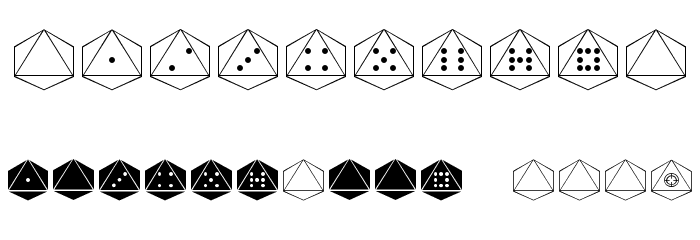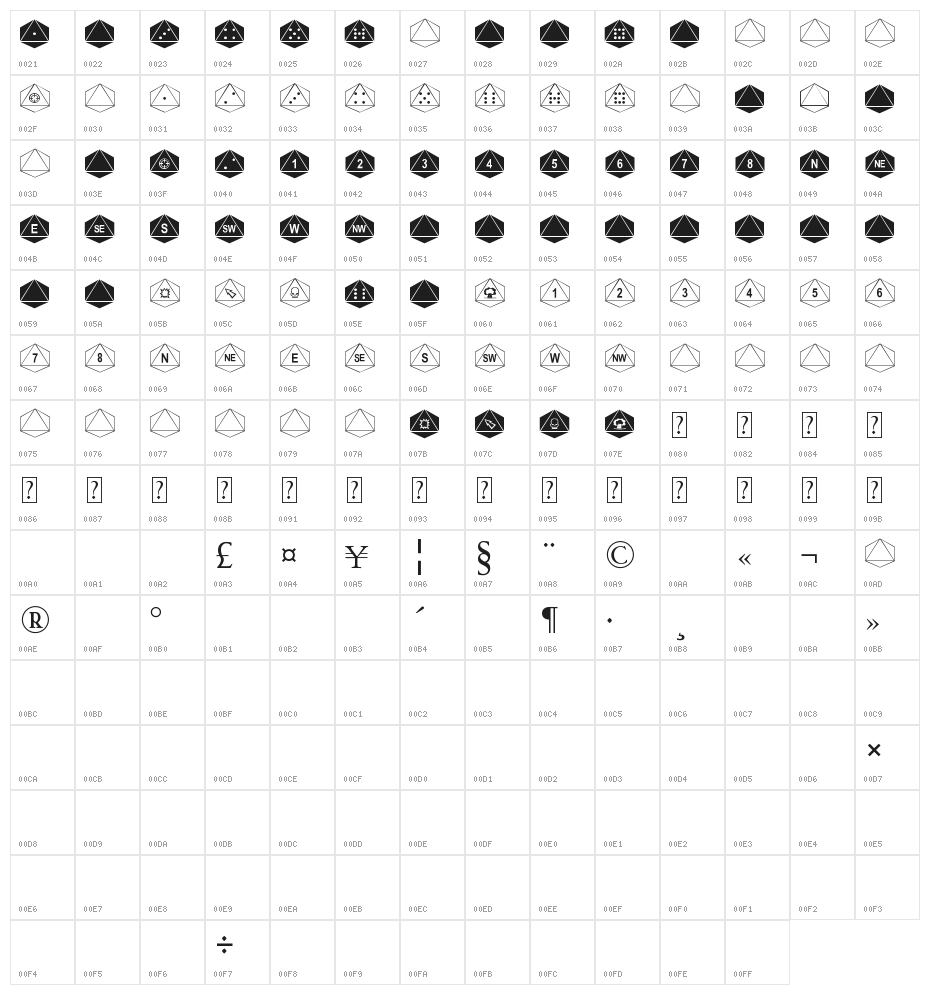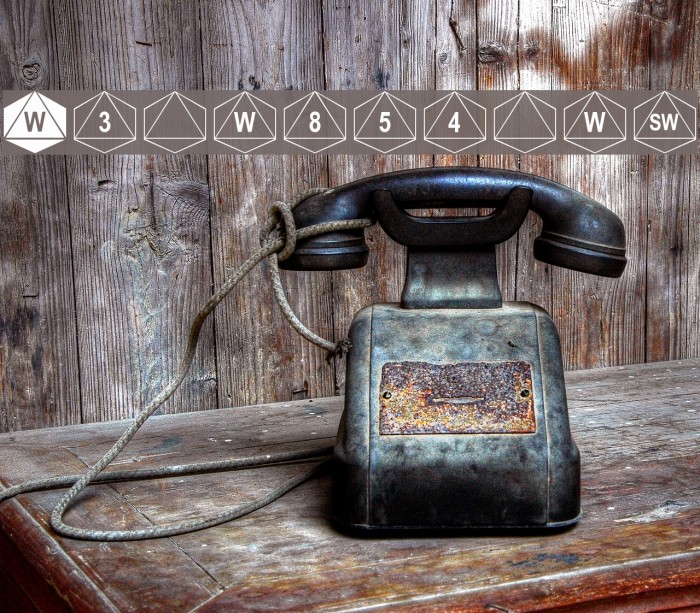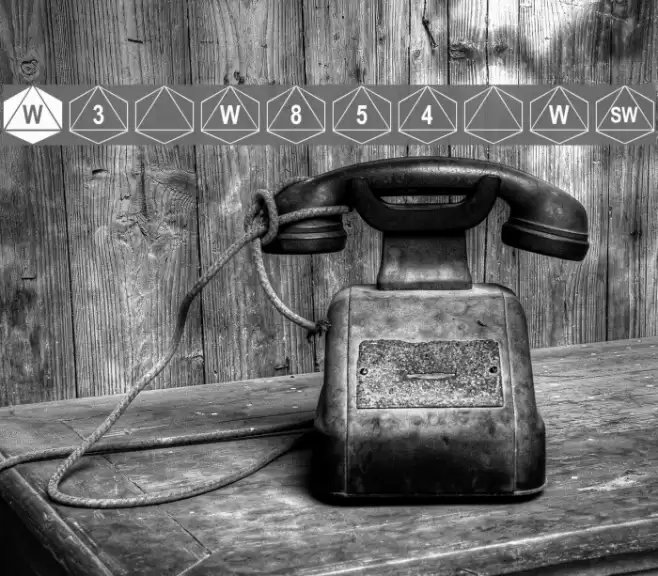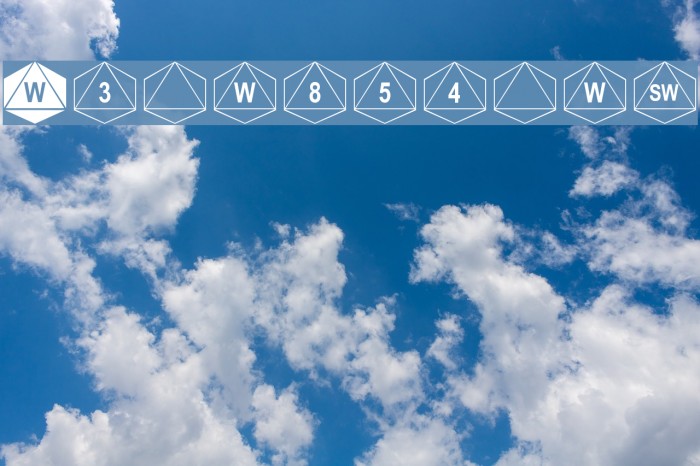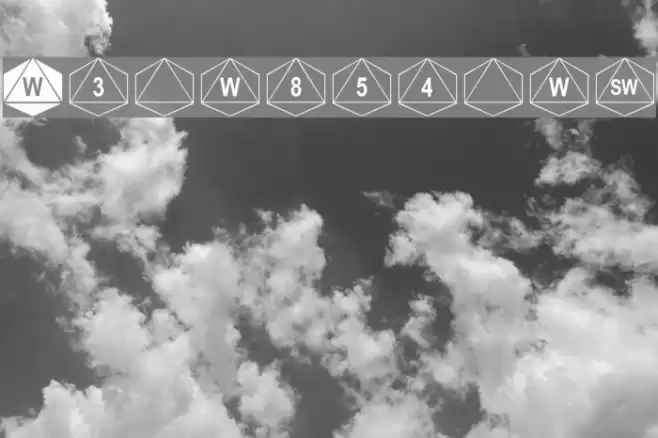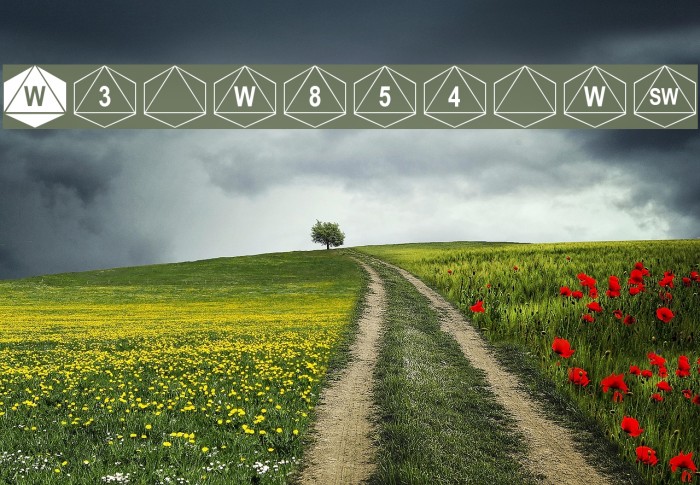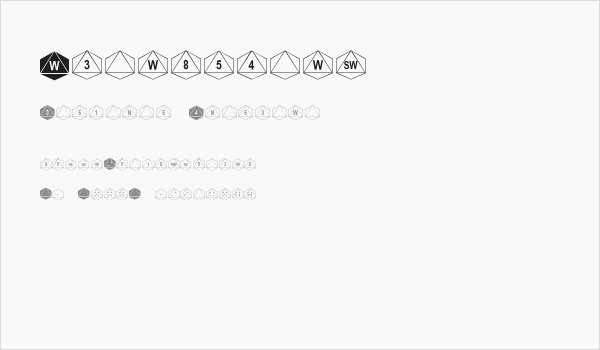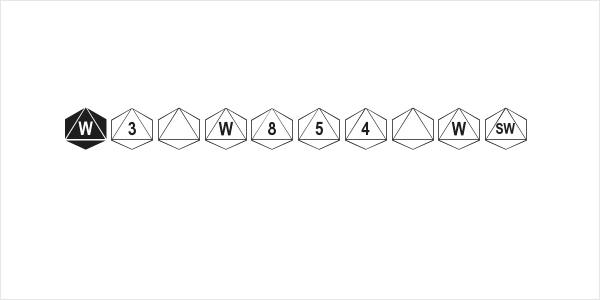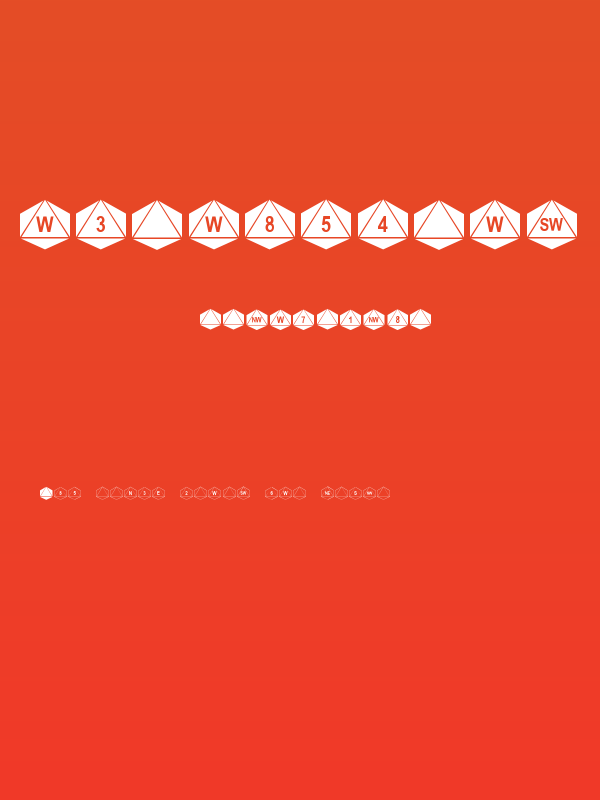
Octohedron Font
Octohedron Description
A geometric, icon-based set with octagonal shapes containing numbers, letters, compass directions, and dot patterns. The characters are centered within solid or outlined polygonal backgrounds, creating a modular and technical appearance.
| Overall Style | Modern, Geometric, Technical |
| Use Case | Icons, Game pieces, Informational graphics, Wayfinding systems |
| Proposed Projects | Board games, tabletop RPGs, navigation tools, educational materials, infographics. |